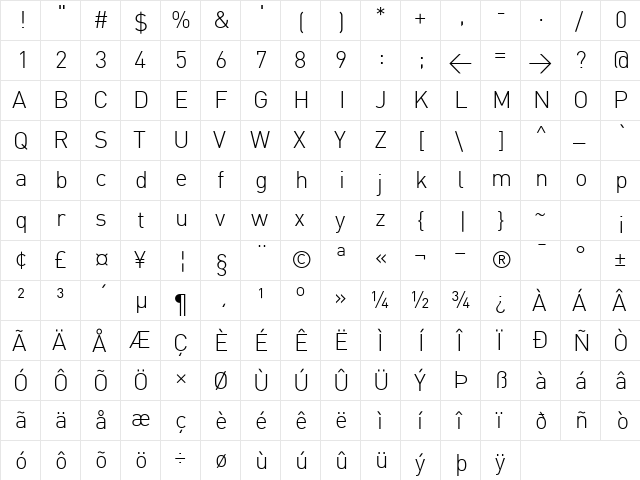
DIN Light Regular
Design Context for DIN Light Typeface
DIN Light takes a measured approach to typography — its balanced proportions and neutral character make it a reliable workhorse for both digital and print work. Its slender proportions lend an understated elegance to any composition.